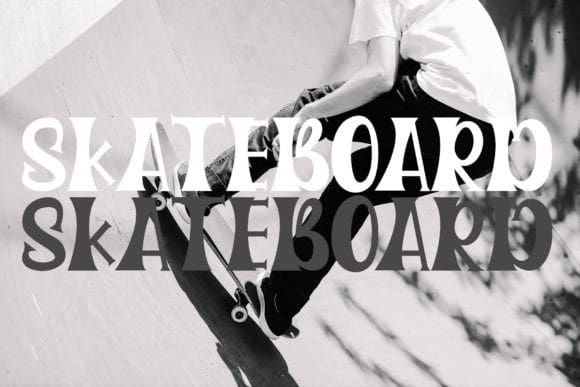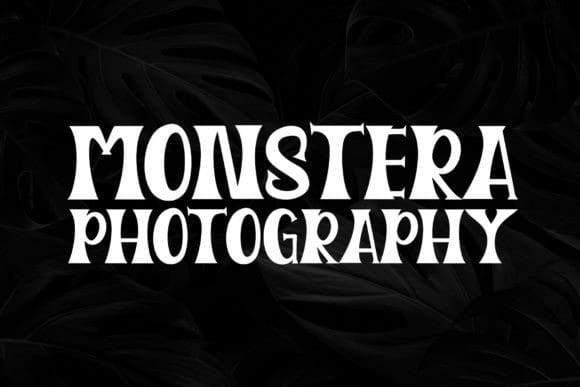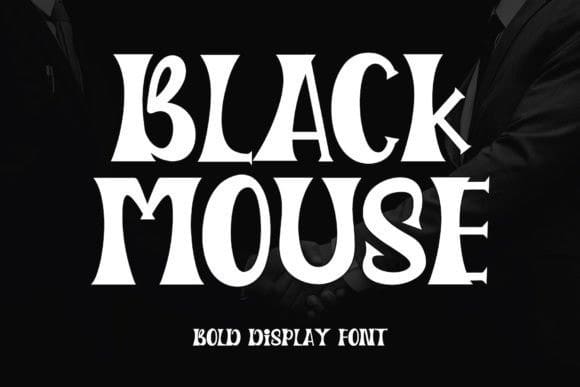
Black Mouse Font
Black Mouse Font, is a display font. It is a font ready to rock every design you want to create. It is perfect for logos, quotes, posters, clothing, and so much more! Add it to any of your creative projects, and be amazed by the generated outcome!